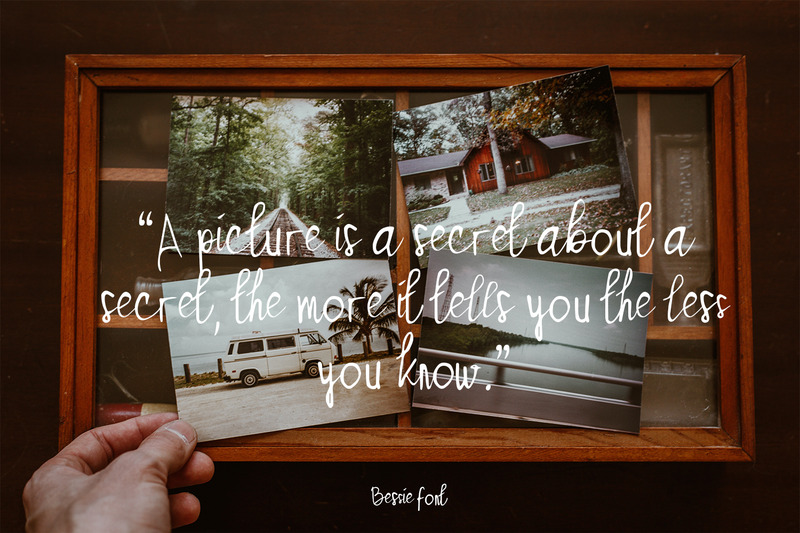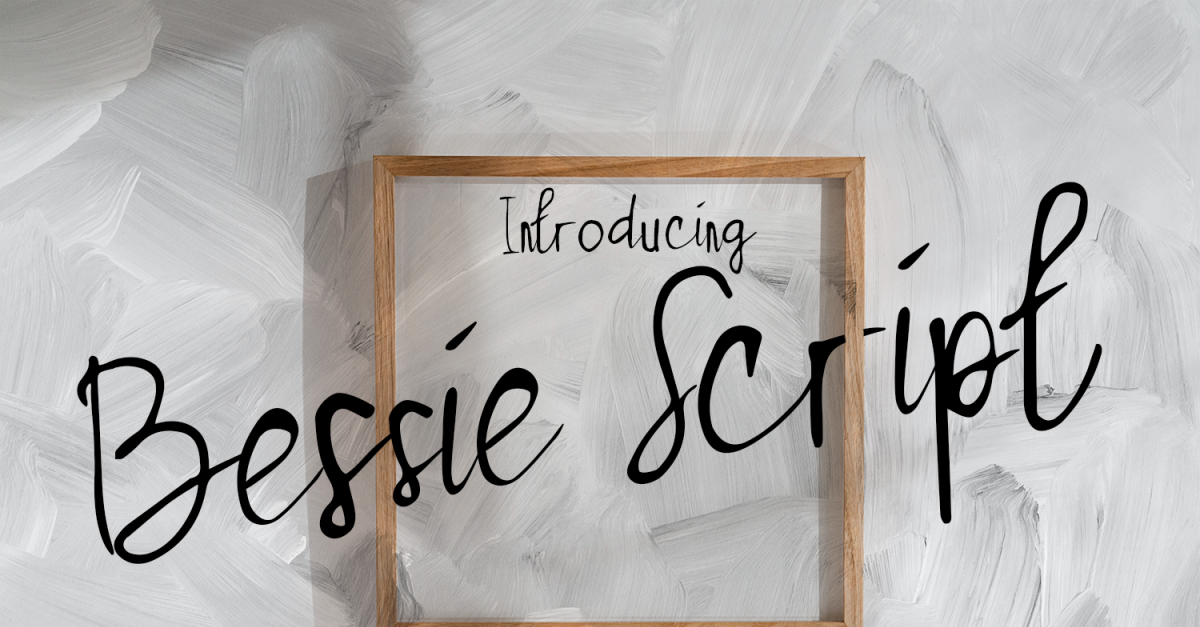
Bessie - Beautiful Script Font
Bessie is a Realistic script font inspired from classic handwriting. Suitable to create any branding, product packaging, invitation, quotes, t-shirt, label poster etc.
Feature
•  Uppercase & Lowercase
•  Number & Symbol
•  International Glyphs
•  Multilingual support
•  ligature